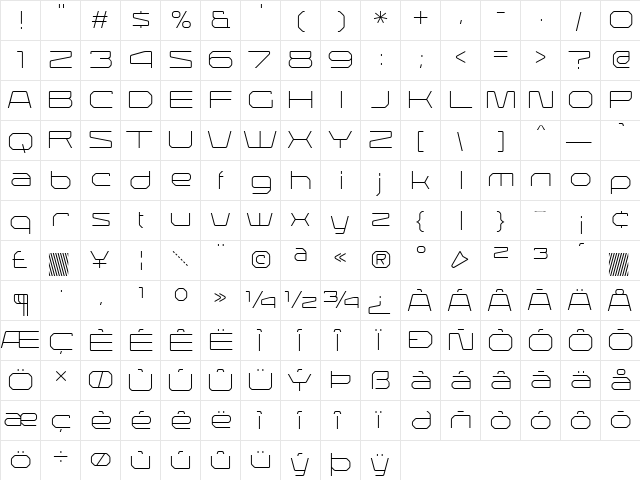
Lineavec Regular
Design Context for Lineavec Typeface
Lineavec offers clean, dependable letterforms without strong stylistic allegiance, making it a practical choice for designers who need flexibility.